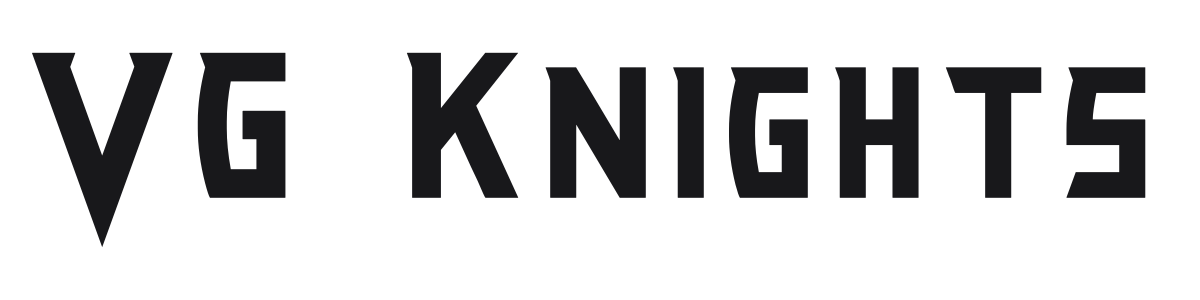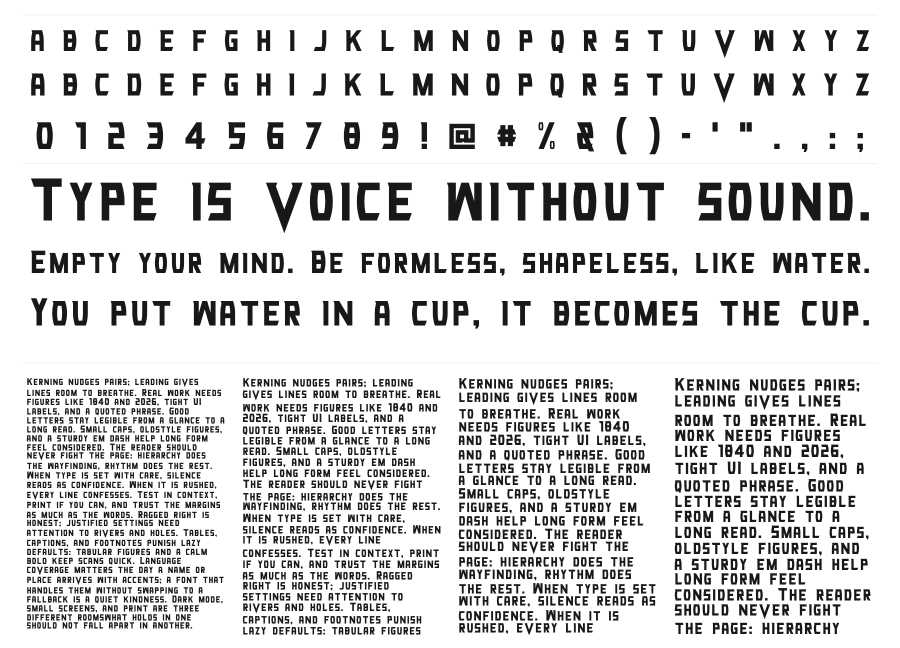
VG Knights
VG Knights is a bold condensed display font that channels medieval and knightly imagery through angular, geometric construction. The sharp diagonal cuts and flat terminals give it a gothic edge without straying into true blackletter territory, keeping it crisp and readable at large sizes. It carries real weight and authority, suited to game titles, sports branding, and anything that needs a sense of armored gravitas.